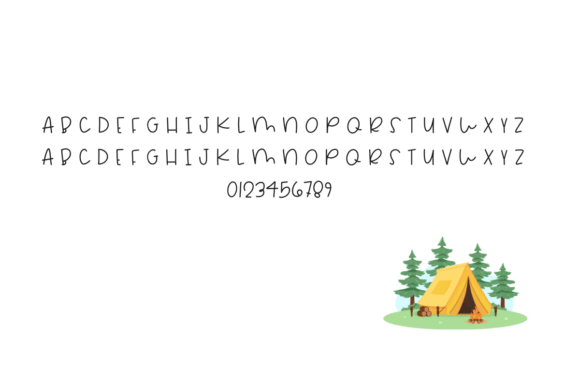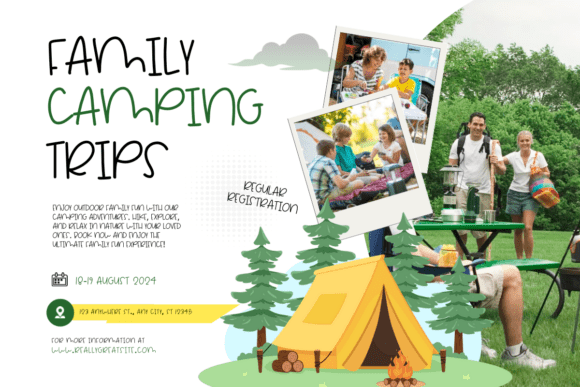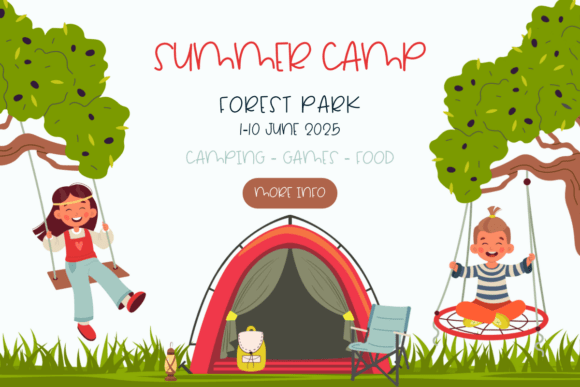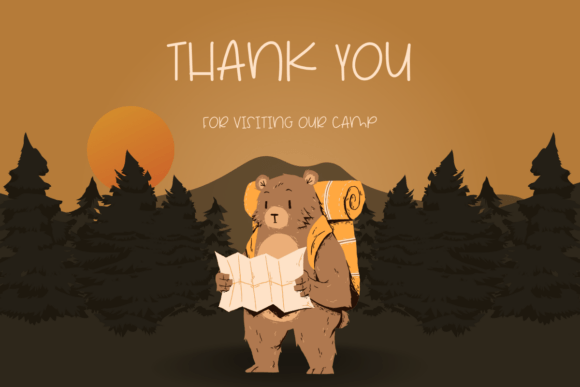
The Great Outdoors, in Type: Discovering the Charm of Camping Font
I still remember the design project that led me to discover the delightful Camping font. I was working on a branding campaign for a children’s summer camp, and I was struggling to find a font that captured the carefree spirit of outdoor adventures. The client wanted something playful, yet elegant; fun, yet legible. After hours of scouring font libraries and testing various typefaces, I stumbled upon Camping – a beautiful, handwritten font that instantly transported me to a summer night under the stars.
Here’s what I’m obsessed with about Camping font:
- ✨ Playful curves and uneven strokes that evoke a sense of whimsy and freedom
- ✅ Highly legible, even at smaller font sizes – perfect for body text or captions
- ✅ A relaxed, carefree vibe that’s perfect for camp-themed designs, nature-inspired branding, and kid-friendly projects
Of course, no font is perfect. Here are a few quirks to keep in mind:
- ⚠️ Some characters (like the lowercase “g” and “y”) have slightly unusual forms that might take some getting used to
- 🤔 Limited language support – while Camping covers the basics, it might not be the best choice for multilingual projects
The Story Behind Camping Font
Camping font was designed with the great outdoors in mind. Its creator, a passionate typographer, wanted to capture the essence of childhood wonder and adventure. Inspired by lazy summer days, campfires, and starry nights, Camping is the perfect reflection of a carefree spirit.
| What type of projects is Camping font best suited for? | Camping font is perfect for camp-themed designs, nature-inspired branding, posters, and kid-friendly projects. |
| Is Camping font suitable for body text? | Yes, Camping font is highly legible, even at smaller font sizes, making it suitable for body text. |